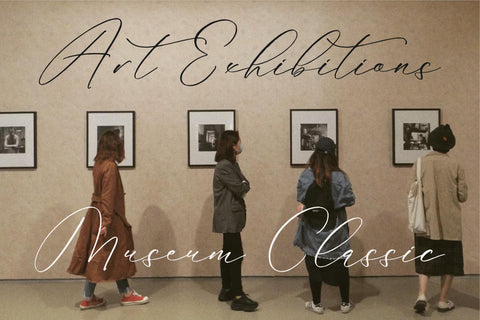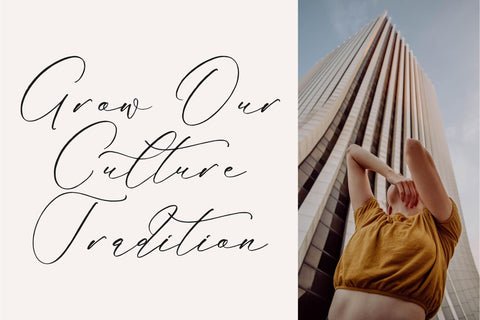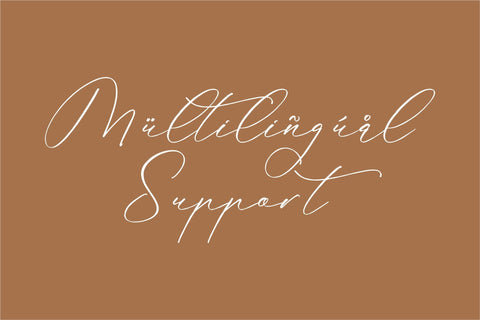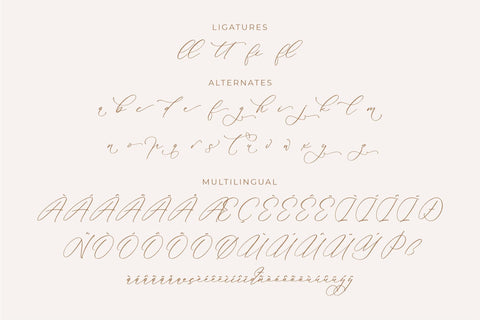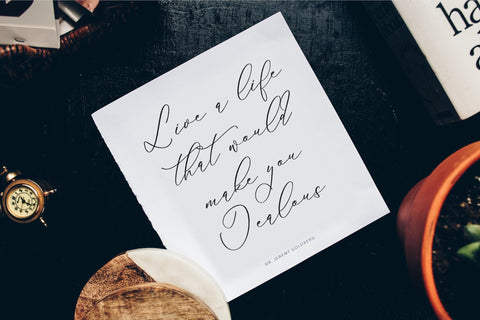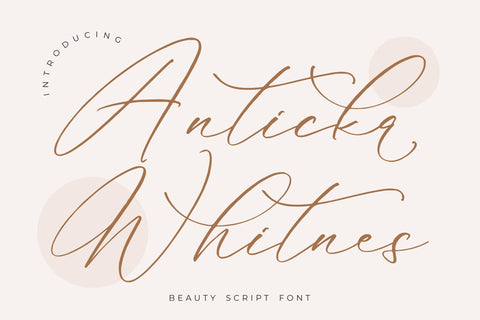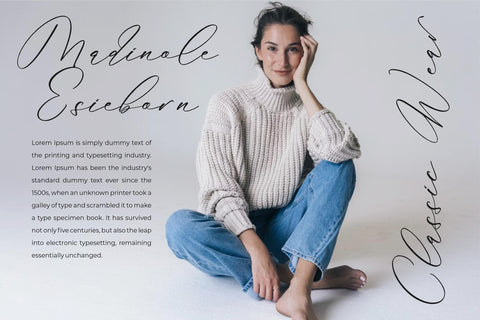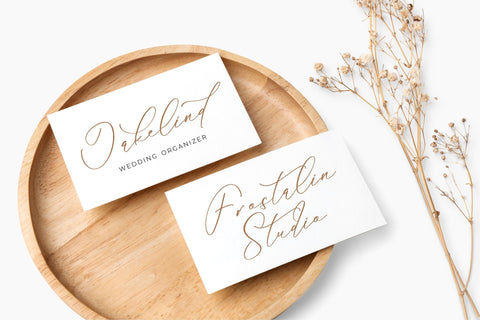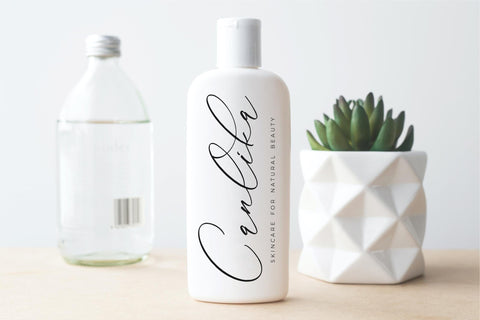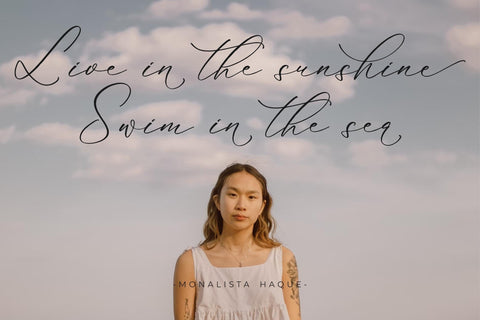
Anticka Whitnes - Beauty Script Font
Proudly present Anticka Whitnes - Beauty Script Font , created by Storytype,
A luxury script that has own unique style & modern look.